Futurism Headline Fonts are a type of font that exudes a modern and futuristic aesthetic. These fonts are often characterized by their sleek and bold designs, with sharp lines and geometric shapes. They are commonly used in graphic design, advertising, and futuristic-themed projects. Futurism Headline Fonts are a great way to grab attention and make a statement. In this blog post, we’ll discuss the importance of Futurism Headline Fonts and where to find free options for download.
What Are Futurism Headline Fonts?
Futurism Headline Fonts are a specific type of font that embodies a modern and futuristic aesthetic. These fonts are characterized by their sleek and bold designs, featuring sharp lines, geometric shapes, and unique letterforms. They are commonly used for headlines, titles, and other attention-grabbing elements in graphic design and advertising. Futurism Headline Fonts add a sense of sophistication and innovation to any project, making them a popular choice among designers.
The Importance of Futurism Headline Fonts
Futuristic headline fonts are important for getting the attention of viewers and showing a modern and innovative style. These fonts have sleek and bold designs that create a strong visual impact and make a memorable first impression. They can enhance the overall aesthetic of a design and add a sense of sophistication and professionalism. By choosing the right futurism headline font, designers can effectively communicate the message and personality of their brand or project.
How to Use Futurism Headline Fonts Effectively?
To use Futurism headline fonts effectively, consider the following tips:
Pair with a clean and minimalistic design : Futurism fonts work best with simple and sleek designs to highlight their uniqueness.
Use appropriate font sizes : Ensure the font sizes are legible and align with the overall design hierarchy.
Contrast with backgrounds : Create contrast by using a Futurism font on a contrasting background to make it stand out.
Limit usage : Use Futurism fonts sparingly to avoid overwhelming the design. Use them for headlines or important text elements.
Test readability : Always test the readability of the font when used on different devices and screen sizes.
By following these tips, you can effectively utilize Futurism headline fonts to create visually appealing designs.
Examples of Effective Futurism Headline Fonts Usage
When it comes to using Futurism headline fonts effectively, there are numerous examples to draw inspiration from. For instance, a sleek and minimalistic website design can be enhanced with a bold Futurism font for the headlines. In a magazine layout, a futuristic font can bring a modern and cutting-edge feel to the headlines. By incorporating Futurism headline fonts strategically, designers can create visually captivating and attention-grabbing designs.
In conclusion, Futurism headline fonts are a great way to add a modern and futuristic touch to any design project. With their bold and eye-catching styles, these fonts are sure to make headlines stand out. By utilizing free Futurism headline fonts available online, designers can access a wide variety of unique and attention-grabbing options. When used effectively and strategically, Futurism headline fonts can enhance the visual impact of any design. So, don’t hesitate to experiment and incorporate these fonts into your next project for a futuristic and captivating look.
Top Free Futurism Headline Fonts for Download
When it comes to free futurism headline fonts, there are numerous options available for download. Here are the top fonts that can help you create eye-catching headlines:
Galaxy Futuristic Headline Font
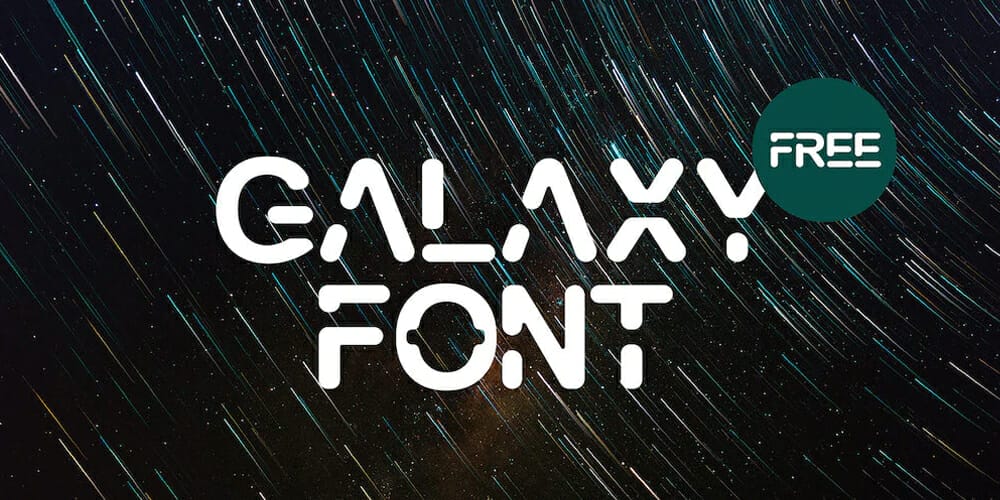
RedFive Font
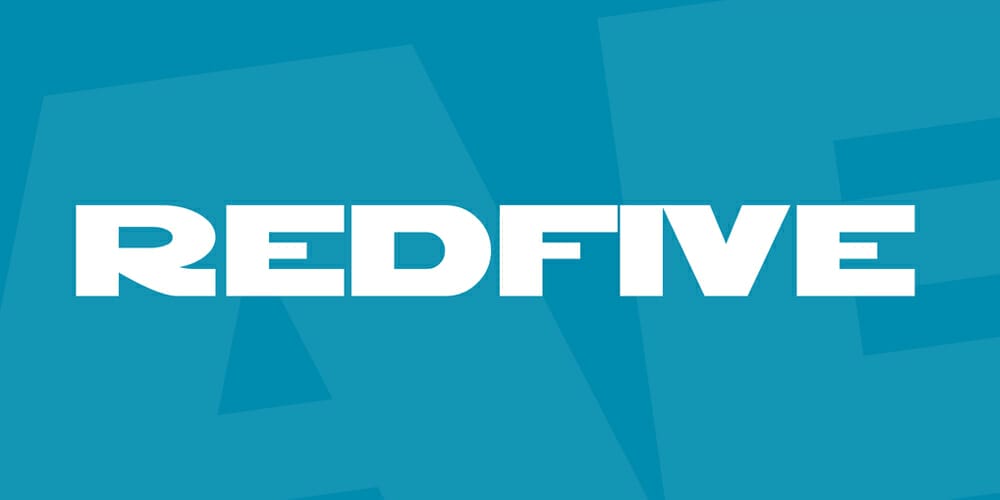
Megabeat – Retro Futurism Fonts
Stormfaze Font
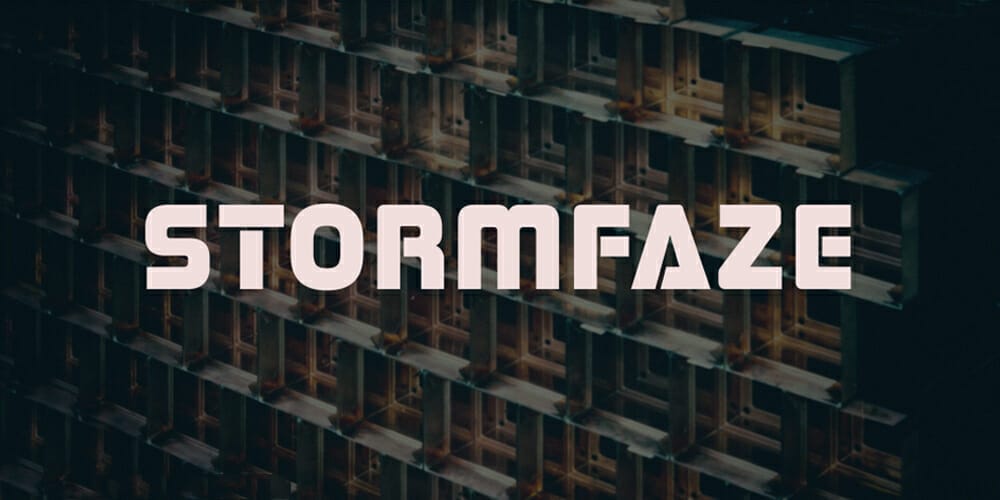
Library 3 AM Font
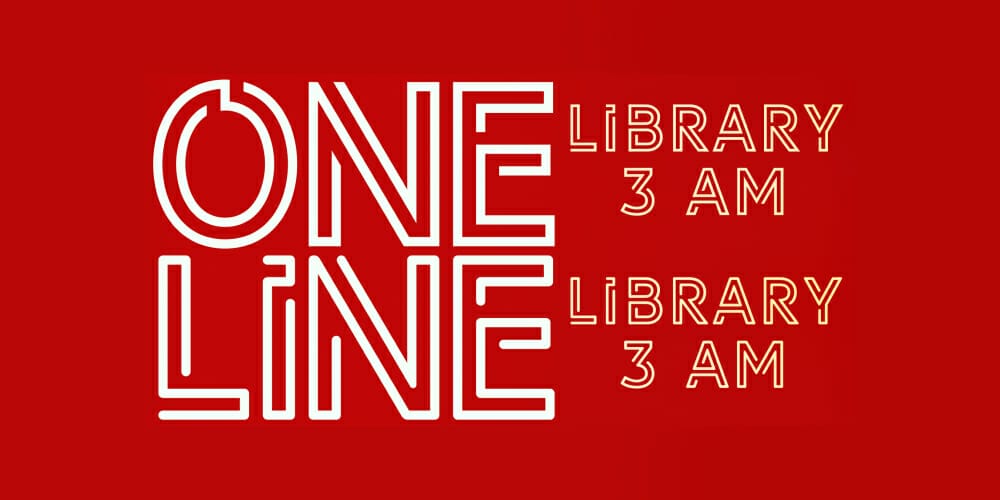
Gudwil – Futuristic Display Font
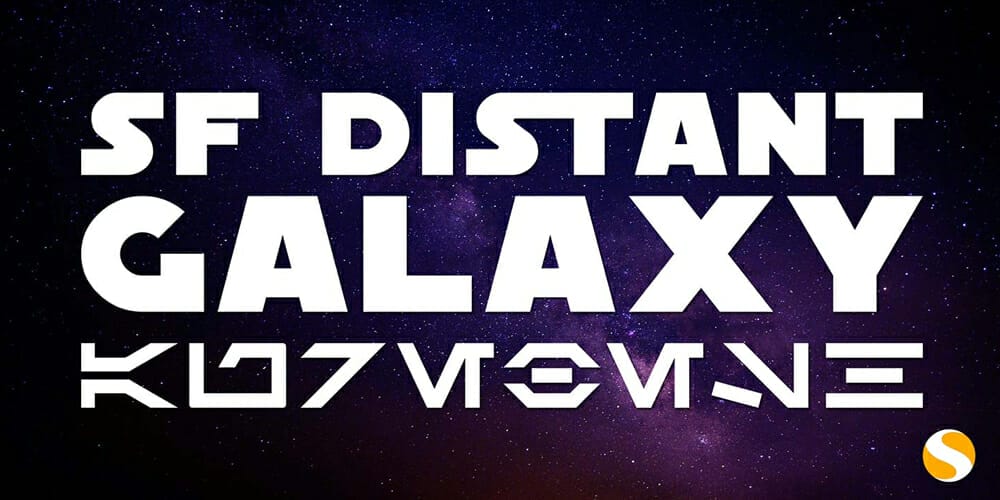
Blanka
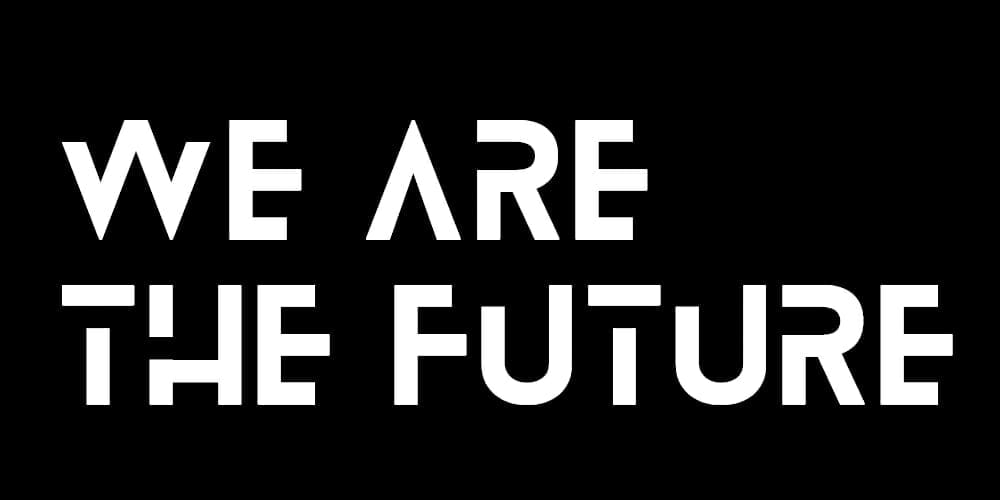
Potra
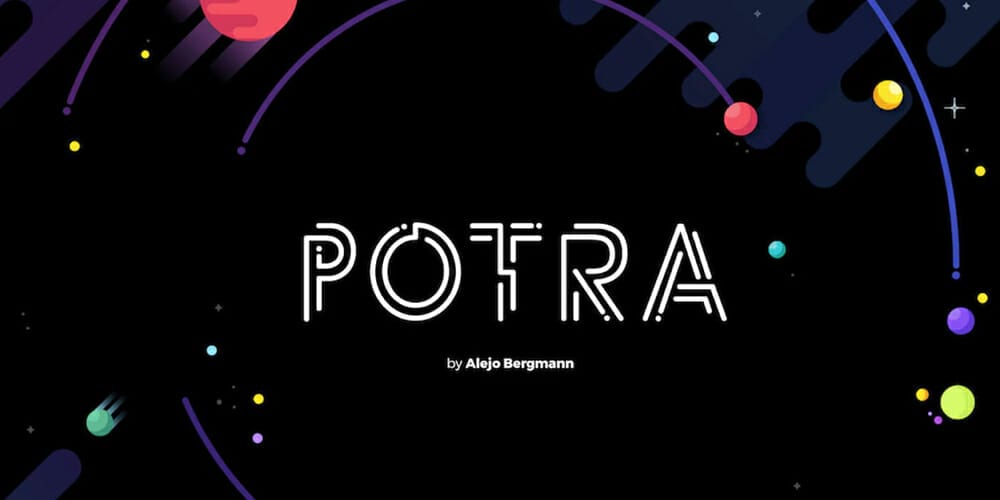
Kanit Font
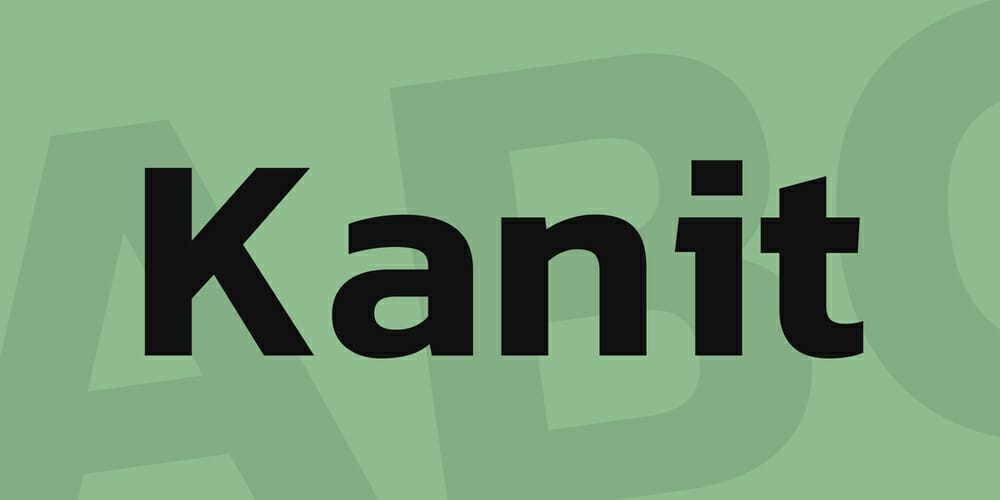
Zero Font
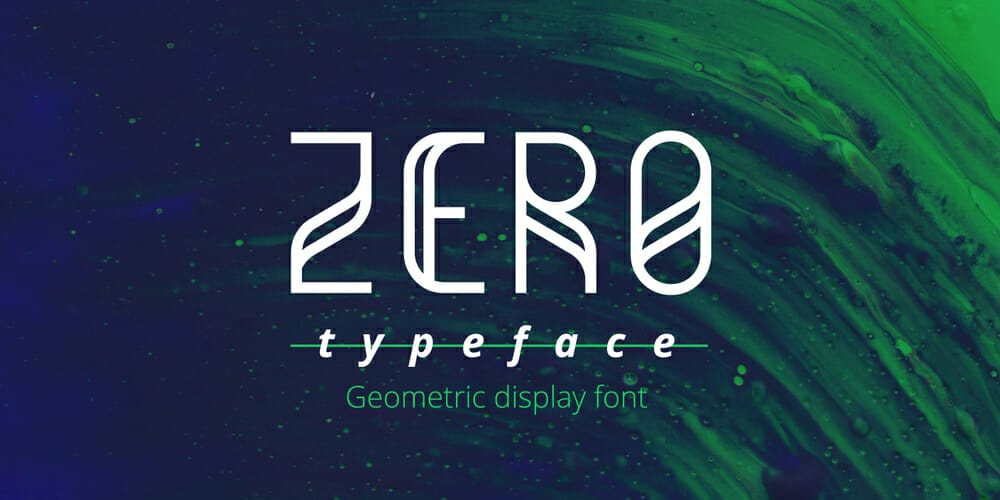
Excratch Font
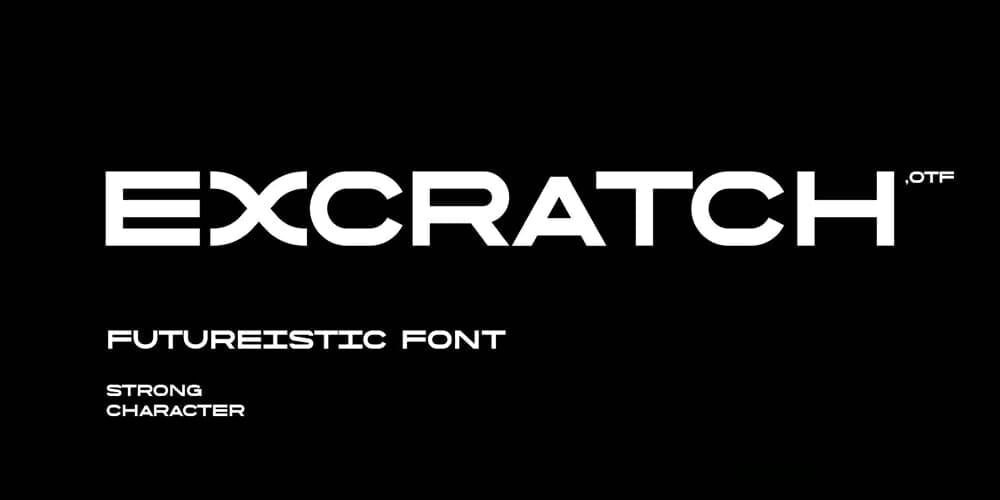
Akashi Font
Cynax Font
Pamu
Kalmansk Font
Fokus Condensed Font
Quantum Typeface
Gover
JUD Font
Nitrogine
Bondi
Amax Display Font
Droid
Modernia
Genesys Font
Kelson Sans